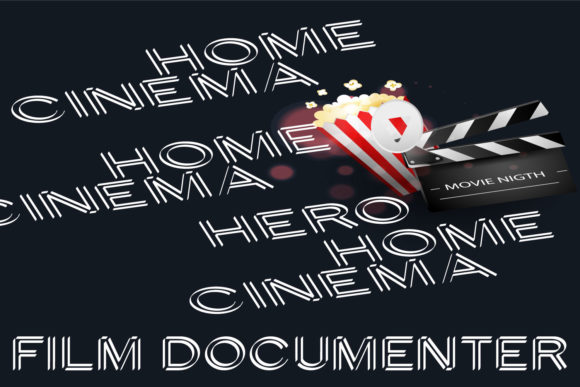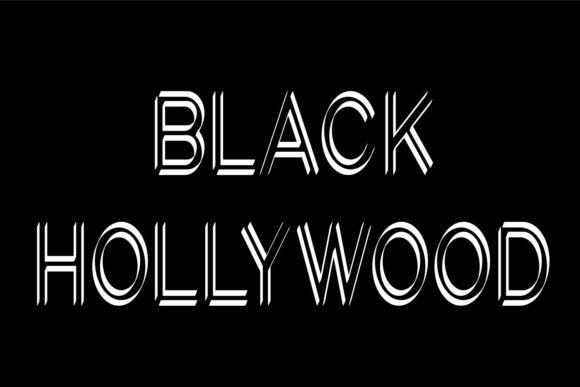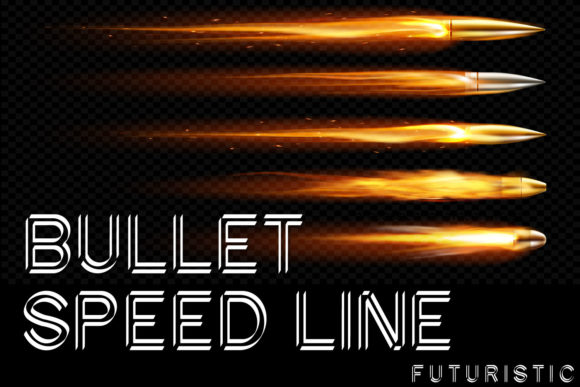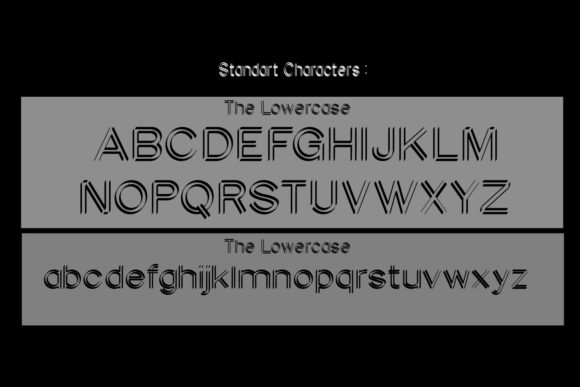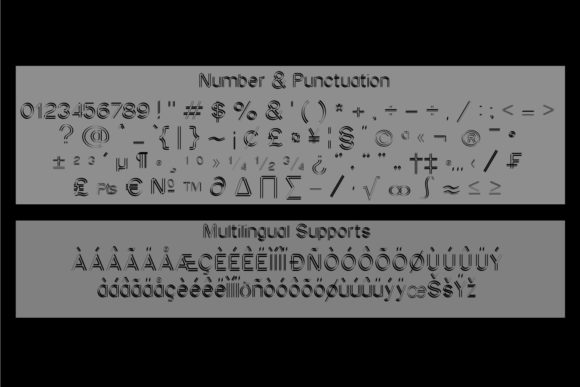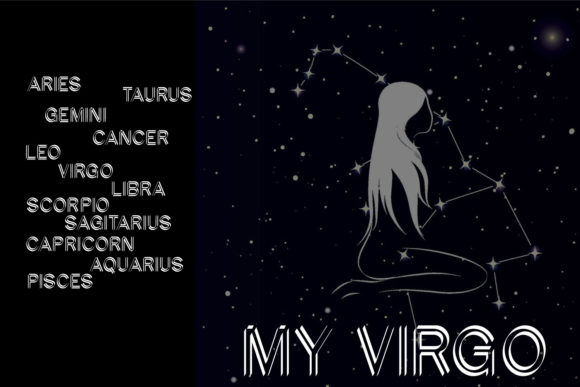
Introducing English 1707 Font: Elevate Your Designs with a Cool and Simple Display Font
Are you on the hunt for a font that can instantly elevate your designs and make them stand out? Look no further than the English 1707 Font. This cool and simple display font is perfect for designers and crafters who want to add a touch of elegance and sophistication to their work. In this article, we’ll dive into the features and benefits of English 1707 Font, and explore how you can use it to take your designs to the next level.
What is English 1707 Font?
English 1707 Font is a stylish and modern display font that is perfect for a wide range of design projects. Its clean and simple lines make it highly versatile, allowing it to be used for both digital and print designs. Whether you’re working on a poster, flyer, or any other type of print material, English 1707 Font is sure to make a statement.
Key Features of English 1707 Font
- Cool and Simple Design: English 1707 Font boasts a sleek and modern design that is sure to grab attention. Its simple lines and curves make it easy to read and understand, while its unique style sets it apart from more traditional fonts.
- Highly Versatile: This font is perfect for a wide range of design projects, from posters and flyers to logos and branding materials. Its versatility makes it a great addition to any designer’s toolkit.
Benefits of Using English 1707 Font
So why should you choose English 1707 Font for your designs? Here are just a few benefits of using this amazing font:
- Adds Visual Interest: English 1707 Font is sure to add visual interest to your designs, making them stand out from the crowd. Its unique style and modern design make it perfect for designers who want to create eye-catching work.
- Enhances Readability: Despite its stylish design, English 1707 Font is highly readable, making it perfect for use in body text as well as headlines.
- Endless Possibilities: With English 1707 Font, the possibilities are endless. Use it to create stunning posters, flyers, logos, and more. Its versatility makes it a great choice for any design project.
How to Use English 1707 Font in Your Designs
Using English 1707 Font in your designs is easy. Here are a few tips to get you started:
- Pair it with Other Fonts: English 1707 Font pairs well with a wide range of other fonts, making it easy to create visually appealing combinations.
- Experiment with Different Sizes: Don’t be afraid to experiment with different font sizes to create visual interest and hierarchy in your designs.
- Use it for Headlines and Titles: English 1707 Font is perfect for use in headlines and titles, where its stylish design can really shine.